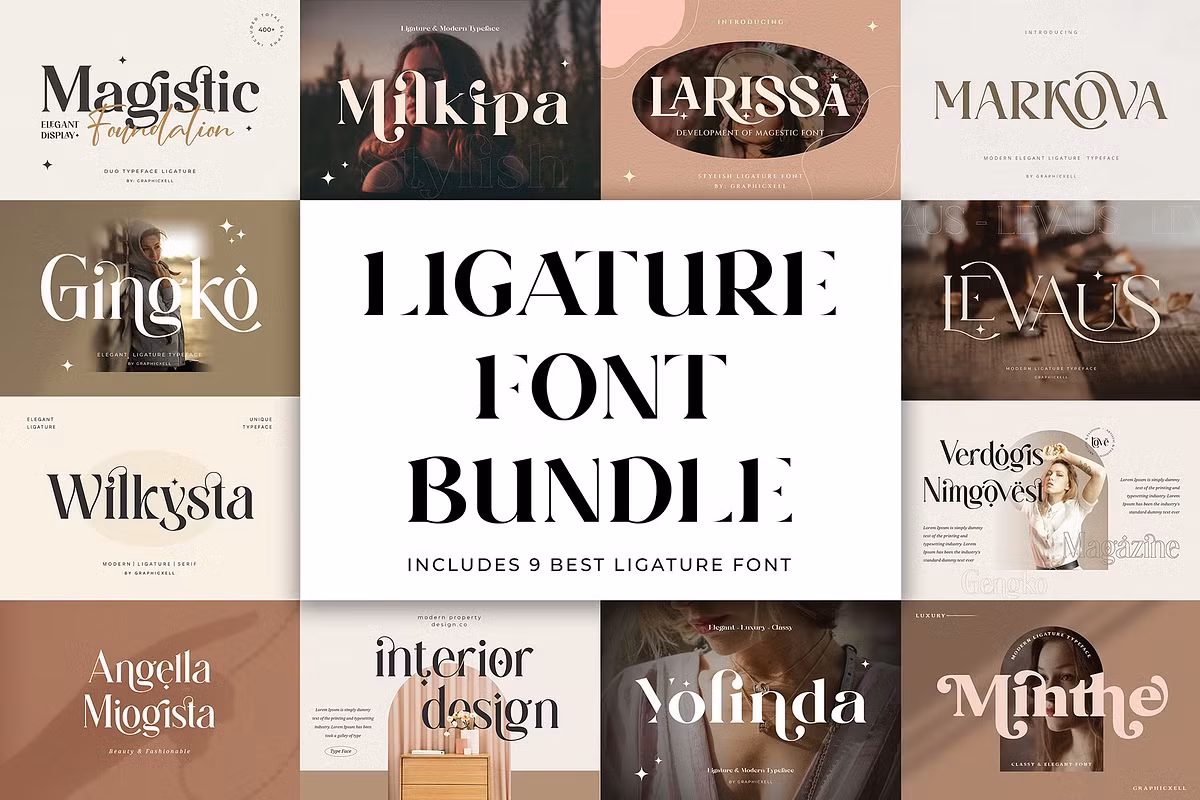
Perfect for branding, wedding invitations, editorial design, social media content, and luxury packaging, this bundle offers a variety of serif and script fonts that elevate your typography with stylish, flowing connections. The built-in ligatures add a custom, high-end feel to every project.